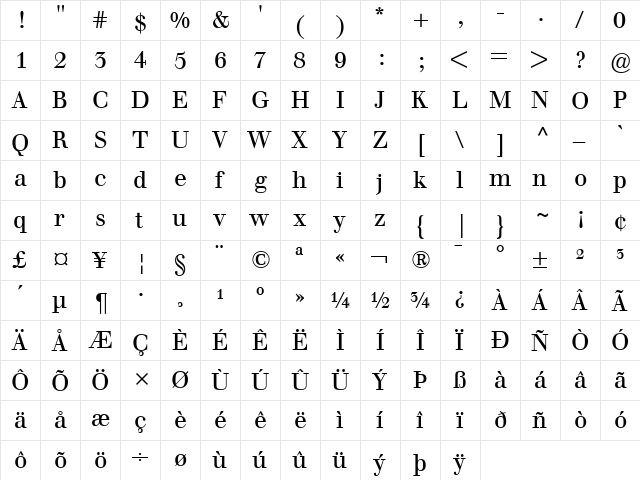
Berthold Walbaum Book Regular
Design Context for Berthold Walbaum Book Typeface
Berthold Walbaum Book takes a measured approach to typography — its balanced proportions and neutral character make it a reliable workhorse for both digital and print work.